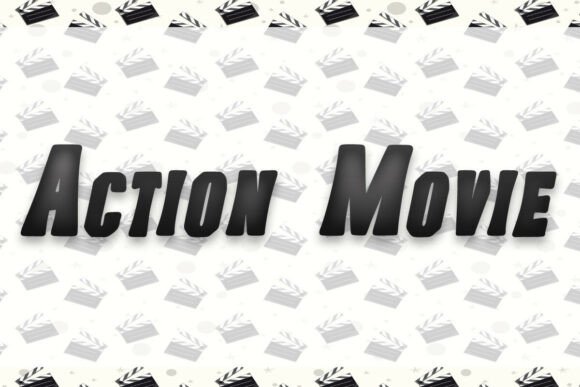
Unleash Your Creativity with Action Movie Font
Have you ever been in the middle of a design project, and suddenly, you’re stuck on finding the perfect font? I recall a particularly challenging project where I needed a font that could convey energy, dynamism, and a touch of edginess. The client wanted a design that would grab attention and leave a lasting impression. After scouring through numerous font libraries, I stumbled upon Action Movie Font, and it was love at first sight! ✨
A Game-Changing Typeface for Bold Designs
Action Movie Font is a versatile typeface that has become my go-to choice for creating striking designs. Its unique blend of boldness and elegance makes it perfect for a wide range of applications, from t-shirt graphics and stickers to brand identities, magazine layouts, and SVG files. Whether you’re a designer, crafter, or creative hobbyist, this font is sure to elevate your projects and make them stand out.
What I Love About Action Movie Font
- ✨ Striking Versatility: Action Movie Font can be used for both digital and print projects, making it a valuable asset for any designer.
- ✅ Ease of Use: The font is incredibly easy to work with, even for those who are new to design or font manipulation.
- 💥 Impactful Designs: The font’s bold and edgy style is perfect for creating attention-grabbing designs that leave a lasting impression.
While Action Movie Font is an excellent choice for many design projects, there are a few minor quirks to be aware of:
- ⚠️ Limited Use in Formal Contexts: Due to its bold and edgy nature, Action Movie Font may not be suitable for formal or professional contexts, such as corporate reports or academic papers.
- 🤔 Glyph Limitations: Some users have reported that the font’s glyph library could be more extensive, particularly for non-English languages.
The Backstory Behind Action Movie Font
Action Movie Font was designed by a team of creatives who wanted to create a typeface that would capture the essence of action-packed movies and high-energy designs. The font’s bold and edgy style is inspired by the world of cinema and the art of filmmaking. The designers aimed to create a font that would be both versatile and impactful, making it perfect for a wide range of design applications.
In conclusion, Action Movie Font is a powerful and versatile typeface that can elevate your designs and make them stand out. With its bold and edgy style, it’s perfect for creating attention-grabbing designs that leave a lasting impression. Whether you’re a designer, crafter, or creative hobbyist, Action Movie Font is an excellent choice for any project that requires a strong and dynamic presence.